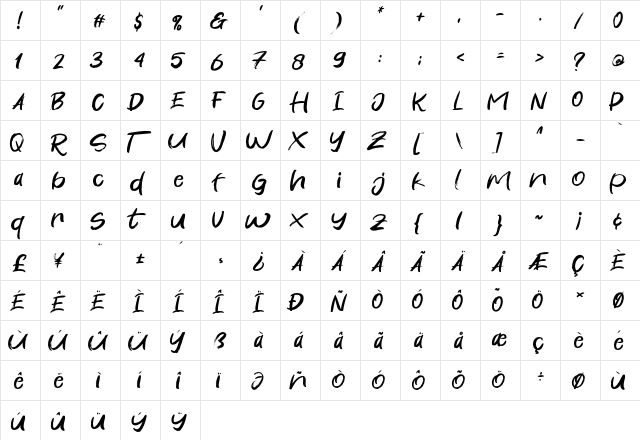
Rehat Regular
| Foundry | Khurasan |
| Designer | Khurasan |
Design Context for Rehat Typeface
Rehat is a composed and adaptable typeface that performs quietly and consistently across a wide range of design contexts.